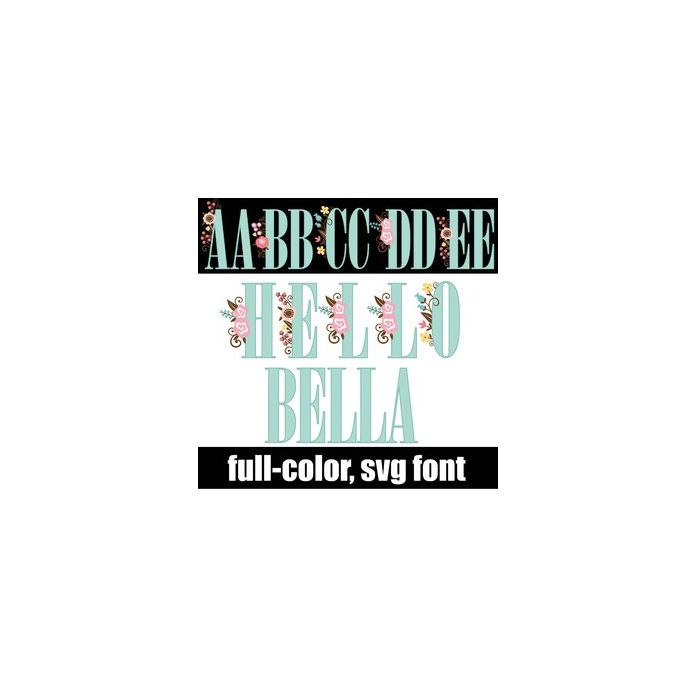
This full-color font features elongated serif lettering with pretty florals on the uppercase. There is an alt case w/ additional colors you can access through your system or Silhouette's glyph map.